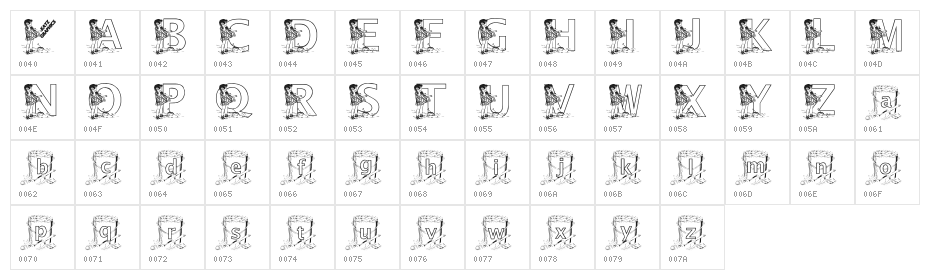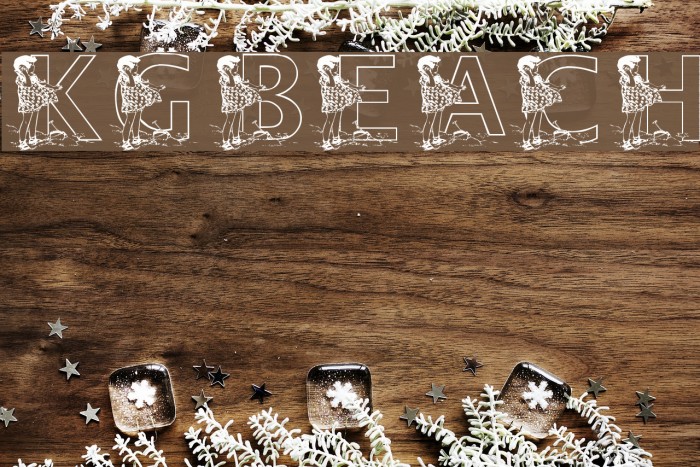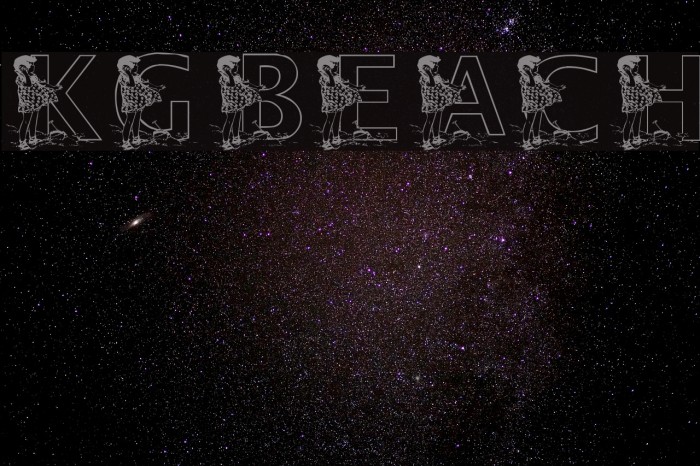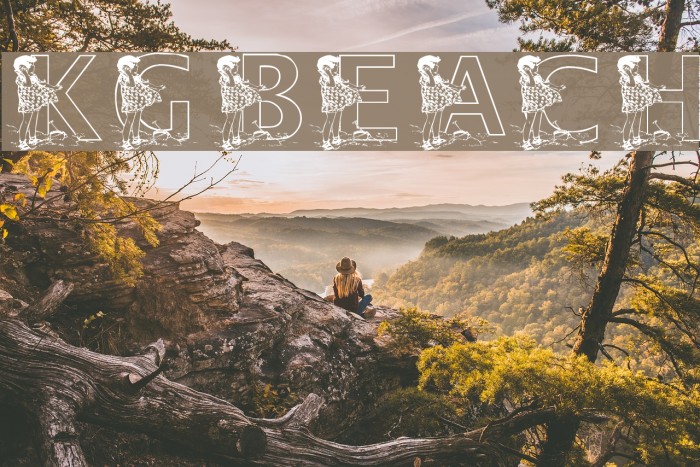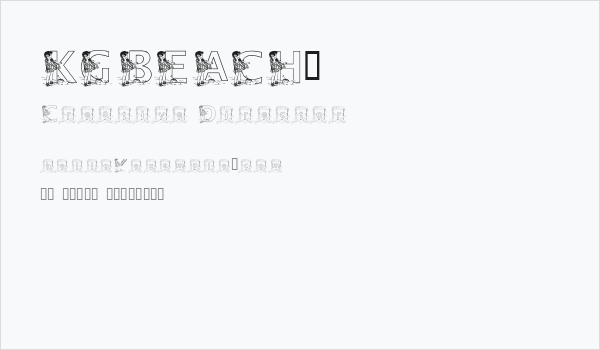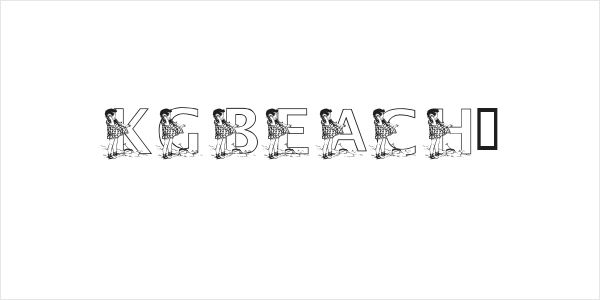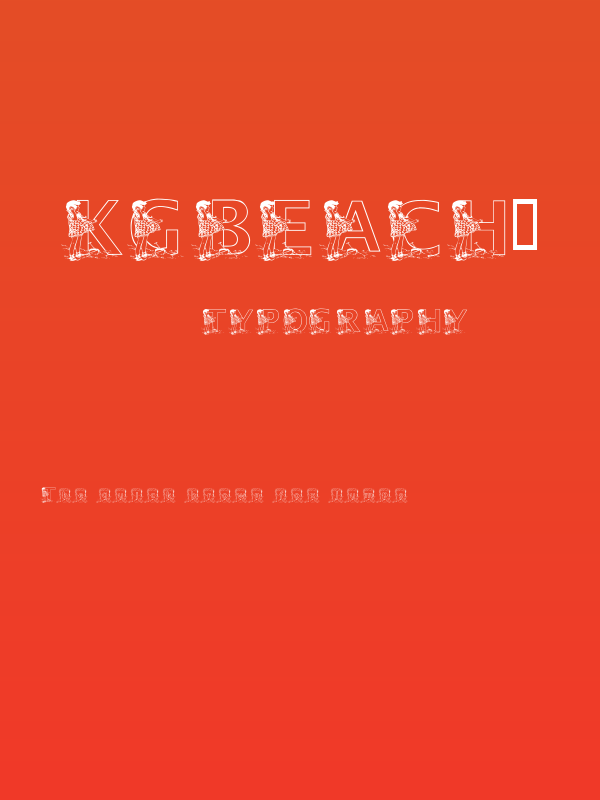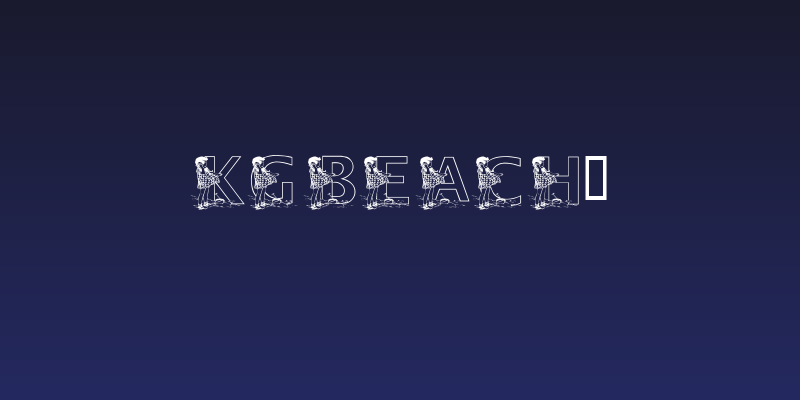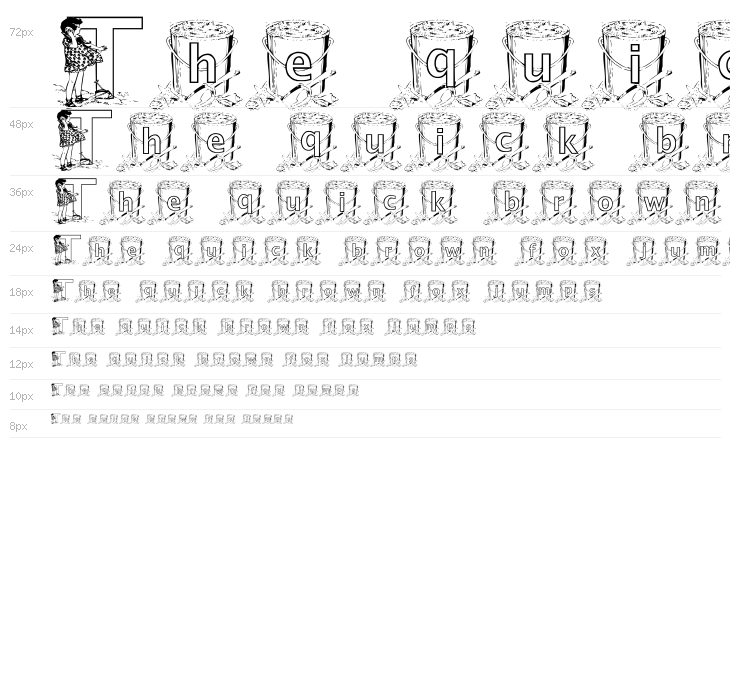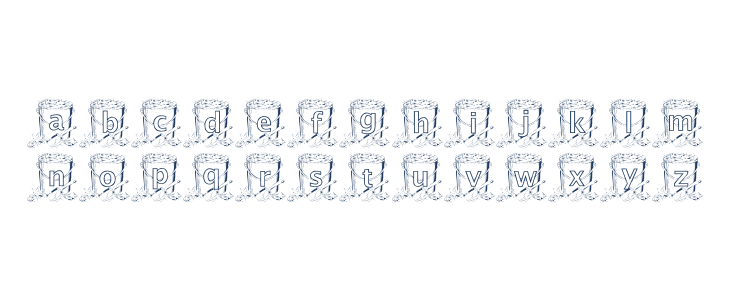
KGBEACH1 Font
KGBEACH1 Description
This font features a unique and playful design, incorporating detailed illustrations of beach scenes within each letter. The uppercase and lowercase letters are adorned with intricate line art, depicting figures and elements reminiscent of a seaside environment. The characters are outlined, allowing the illustrations to stand out prominently. The font's decorative nature makes it ideal for creative projects that require a touch of whimsy and artistic flair. The special characters are represented by bold, rectangular shapes, adding a modern contrast to the otherwise vintage-inspired letterforms.
| Use Case | Headlines, Artistic projects |
| Proposed Projects | Ideal for beach-themed event posters, creative invitations, or artistic branding projects. |